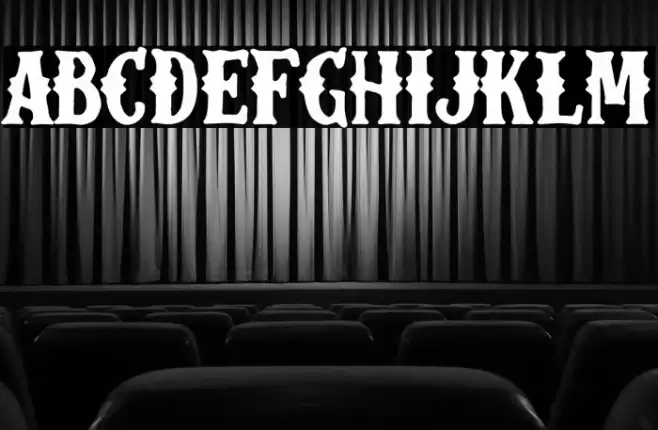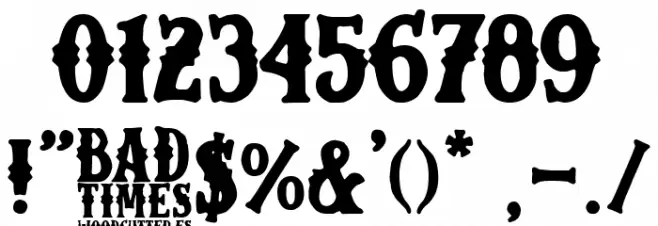
Bad Times Font
Bad Times Description
This font features a bold and dramatic style with a distinct vintage flair. The characters are heavily stylized with thick strokes and unique, ornamental serifs that give it a rugged, old-western appearance. The uppercase letters are particularly striking, with exaggerated curves and angles that create a sense of movement and energy. The numbers and special characters maintain this bold aesthetic, ensuring consistency throughout the typeface. This font is designed to capture attention and convey a sense of strength and nostalgia.
A bold, vintage-style font with ornamental serifs and a rugged, old-western appearance from Uncategorized fonts.
- Font: Bad Times
- Proposed Projects: Ideal for posters, logos, branding projects, and any design requiring a vintage or western theme.
- Overall Style: Vintage